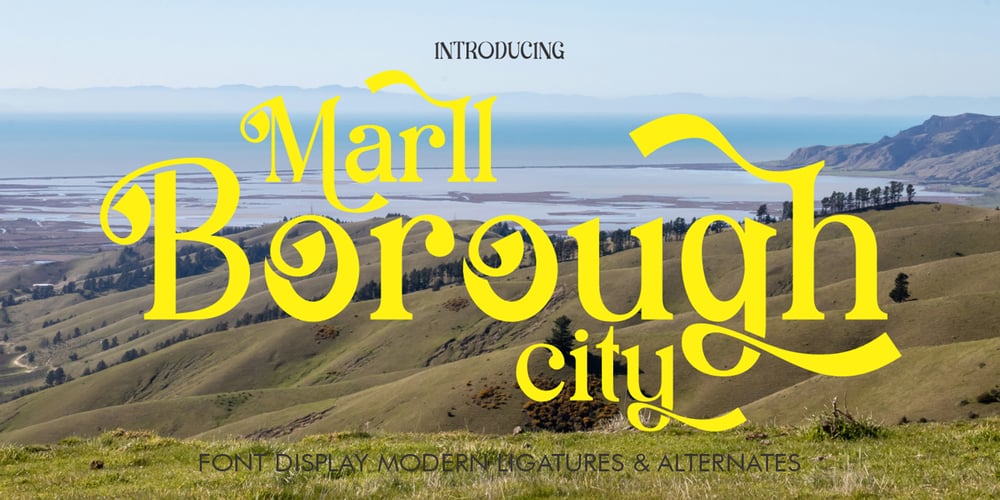
Marll Borough City Font Family was designed by Yusliana M Isa and published by Gian Studio. Marll Borough City contains 1 styles and family package options. Introducing ‘Marll Borough City’ – a stunning typeface that combines the sleek and exotic characteristics of a serif font with beautifully crafted ligatures, making it an ideal choice for creating elegant and sophisticated designs.*Only REGULAR ver. included (no bold or italics) Uppercase & ligature Lowercase letters & ligature Multilingual characters Numbers Punctuation How to access alternate characters: Adobe Photoshop go to Window – glyphs Adobe Illustrator go to Type – glyphsInclude Formats:- Marll Borough City. TTMarll Borough City appears with strong characters available:Get inspired by the image above and feel free to share with me what you get by using this font.